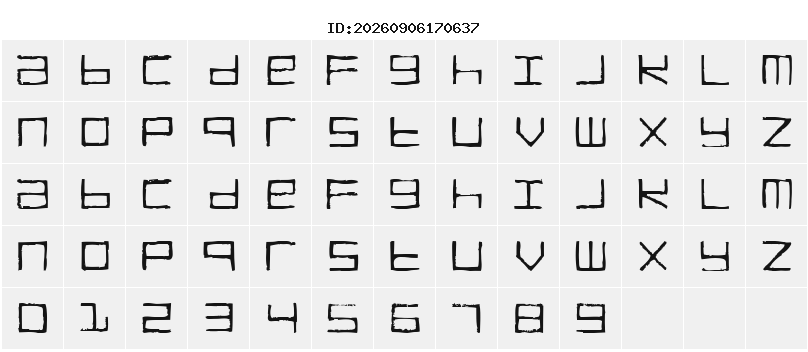
TRUCK Transmission Preview
• Font Name: TRUCK Transmission
• Full Font Name: TRUCK Transmission
About TRUCK Transmission.ttf
TRUCK Transmission.ttf is a modern, elegant sans-serif font designed for ultimate readability and visual harmony. Perfect for branding, headlines, web design, and print materials.